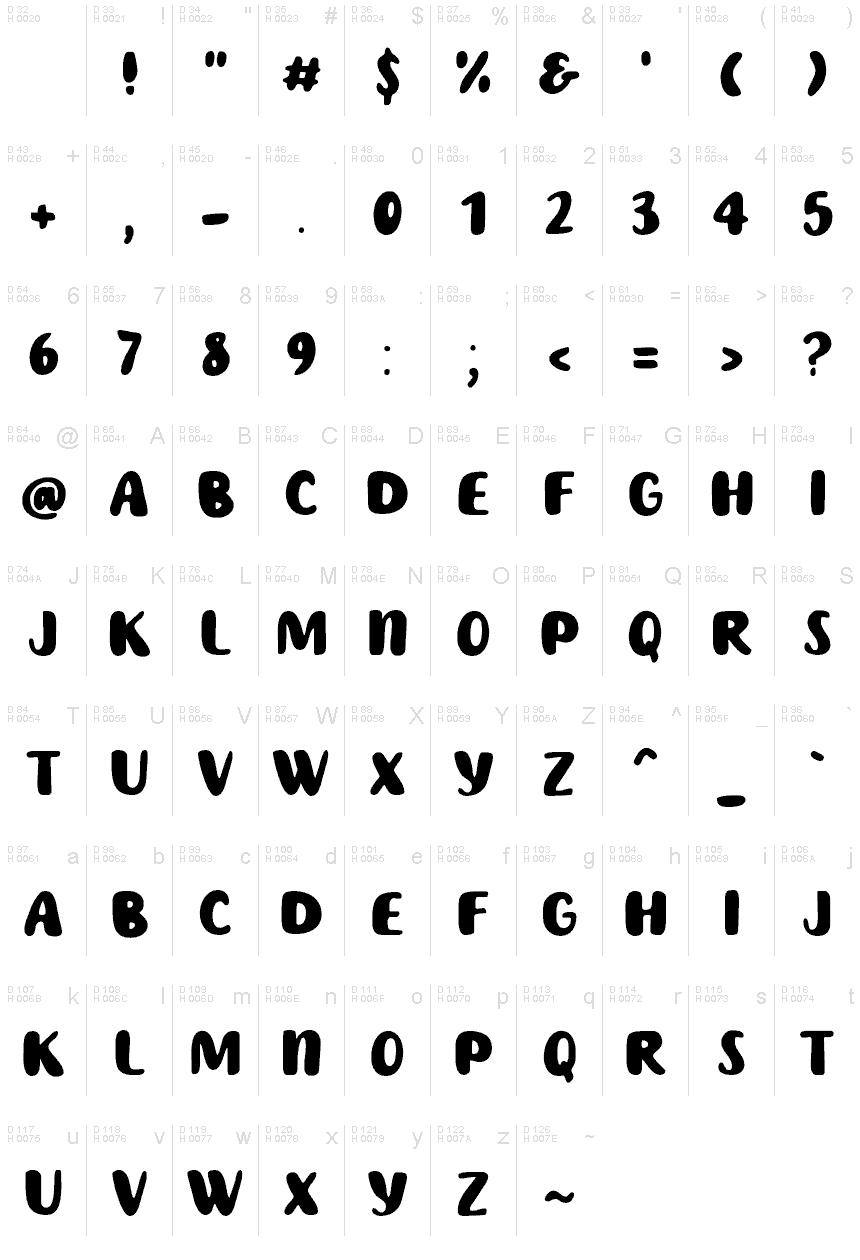
Smile Day
Smile Day font by MJType is a cartoon display font with a retro, rounded style. The bold character and casual aesthetic invite visual pleasure and exude friendliness, so the simple text displays will pop and deliver happy messages to the readers.